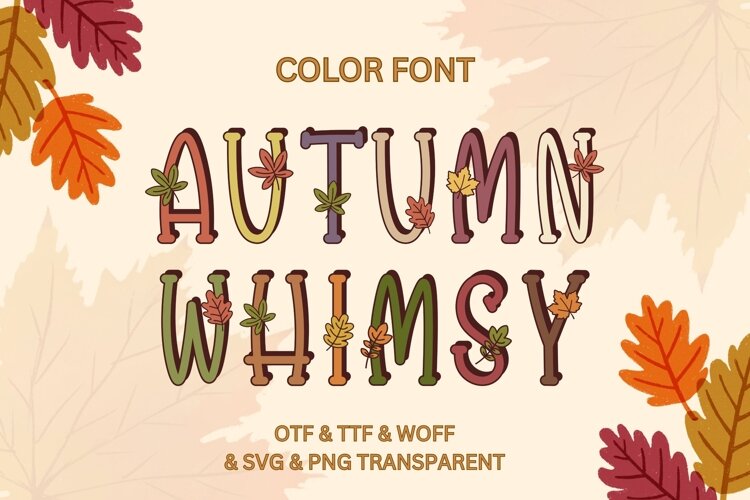
Autumn Whimsy - Color Font
Bring the cozy charm of fall to your creative projects with Autumn Whimsy Color Font, a playful hand-drawn display font inspired by colorful autumn leaves and warm seasonal tones.
Each character features whimsical decorative leaf details and a rich fall-inspired color palette of burnt orange, mustard yellow, olive green, burgundy, brown, and soft cream. The mix of charming letterforms and tiny autumn accents gives every word a warm, cheerful, handcrafted personality.
The font includes uppercase standard characters, numerals, and punctuation, with colorful variations that make your designs stand out beautifully.
A fun and cozy choice for designers, and crafters looking to add a touch of autumn magic and woodland charm to their seasonal creations.